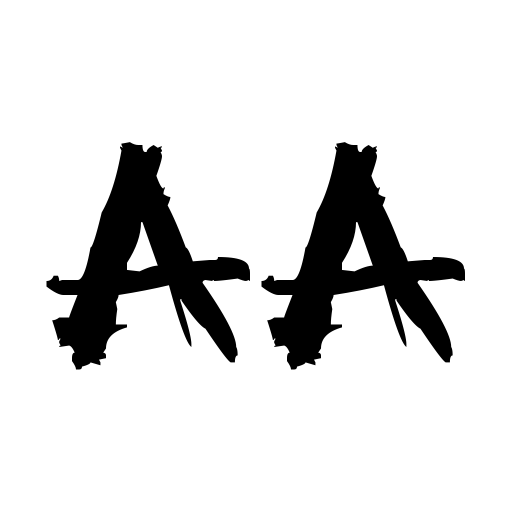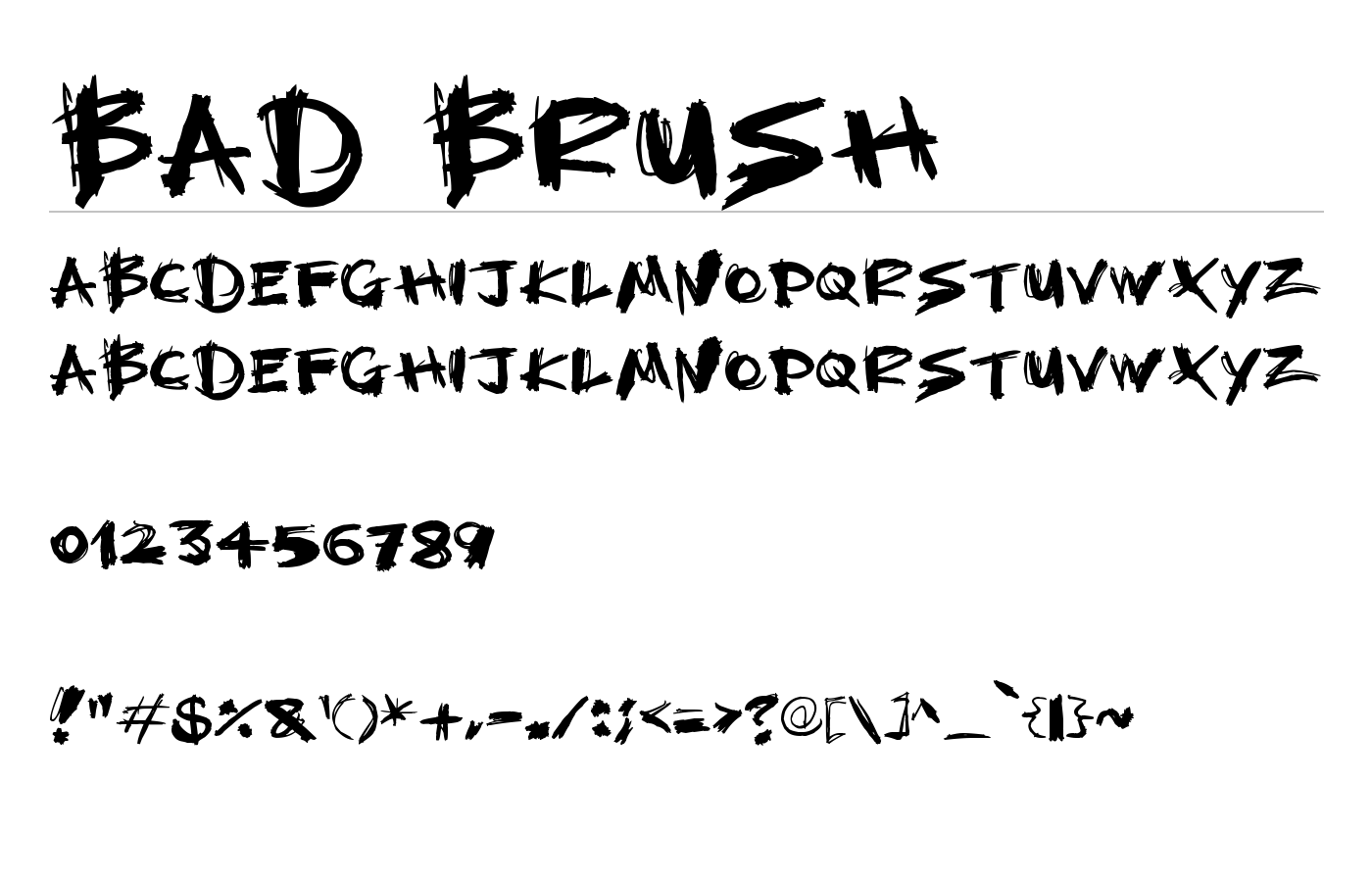
Bad Brush Font is a bold, expressive brush-style font with rough, dynamic strokes that give it a lively and edgy feel. Its uneven, hand-painted texture makes it perfect for creative projects needing a raw, artistic touch, such as posters, logos, and packaging with an urban or rebellious vibe. This font's energetic character adds personality and impact, making it ideal for standout headlines and branding.
Bad Brush Font
About Bad Brush Font